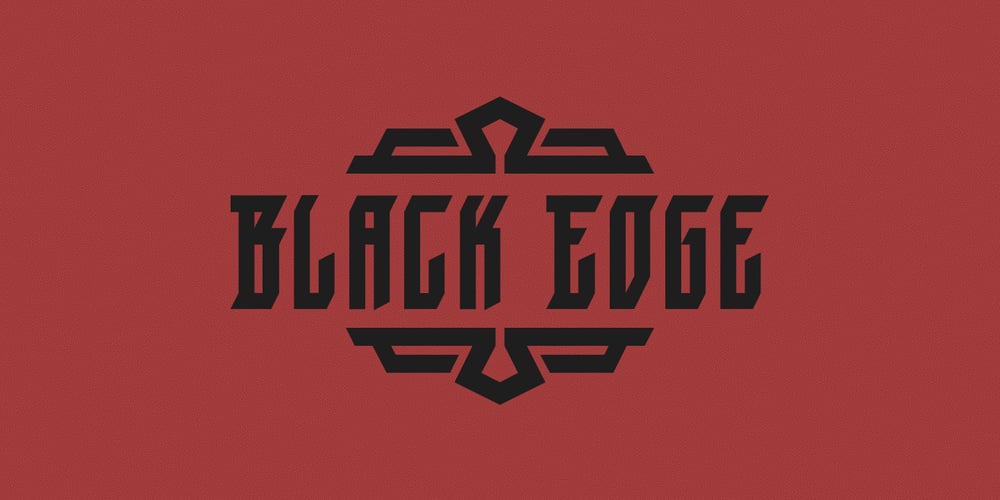
Black Edge
Black Edge font
Black Edge Font Family was designed by Mirco Zuchowski and published by Mirco Zett. Black Edge contains 2 styles and family package options. Black Edge is a strongly stylized blackletter font, inspired by modern and minimalistic typography. It is particularly suitable for headlines, logos, packaging and t-shirts. This font-family also contains several ornamental elements, which are provided without charge when you acquire the font.